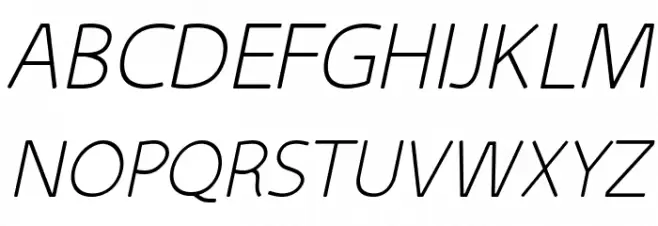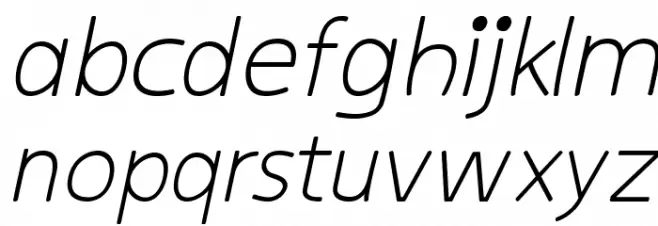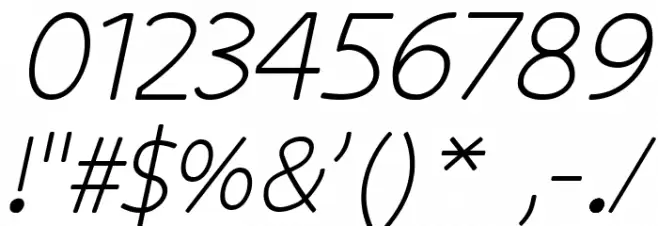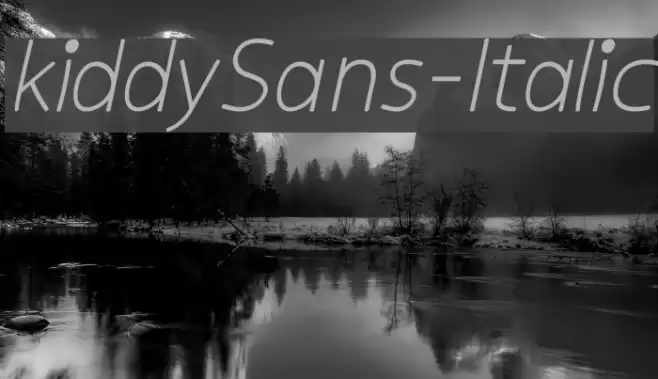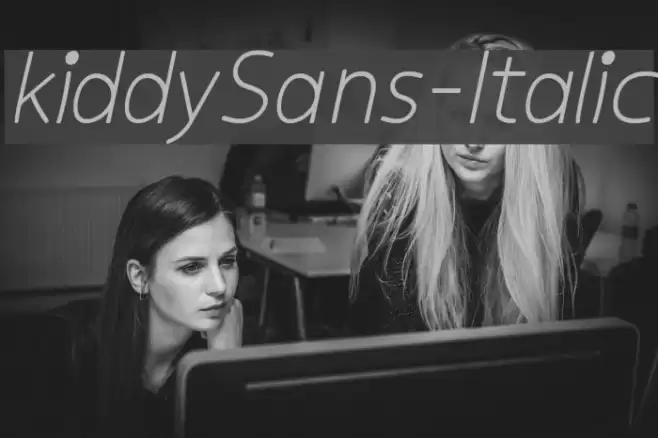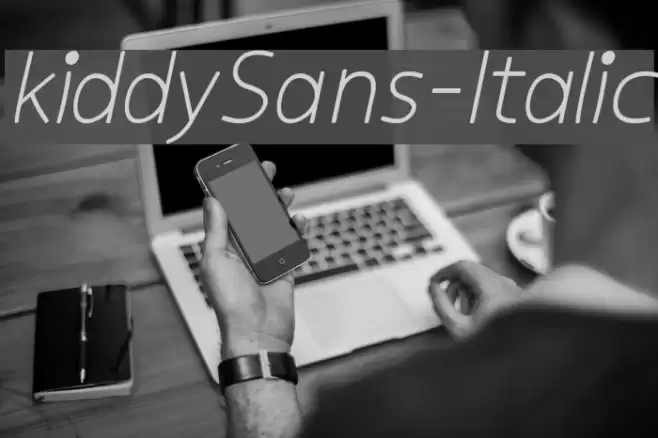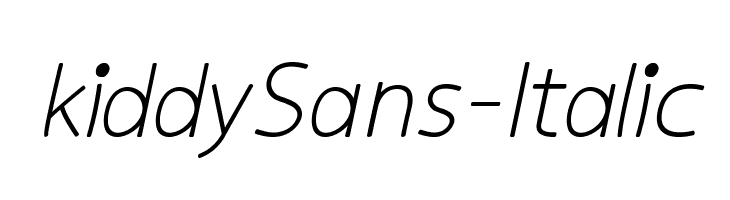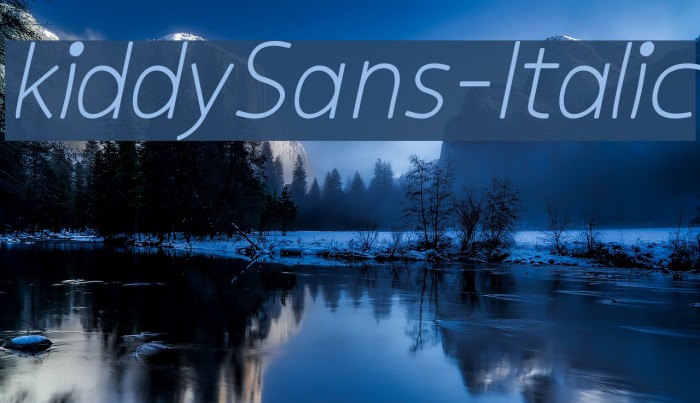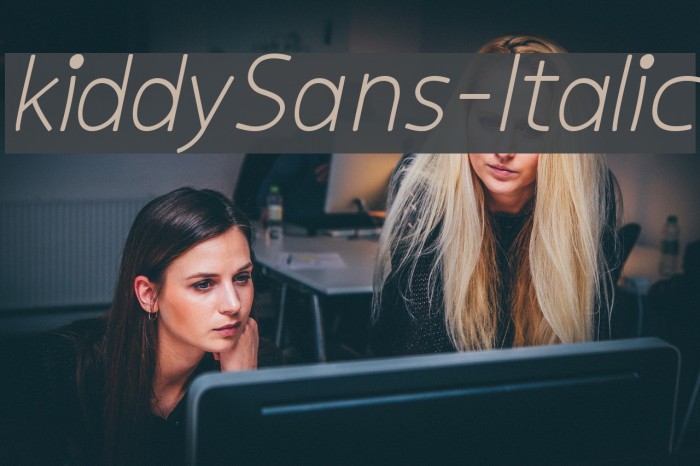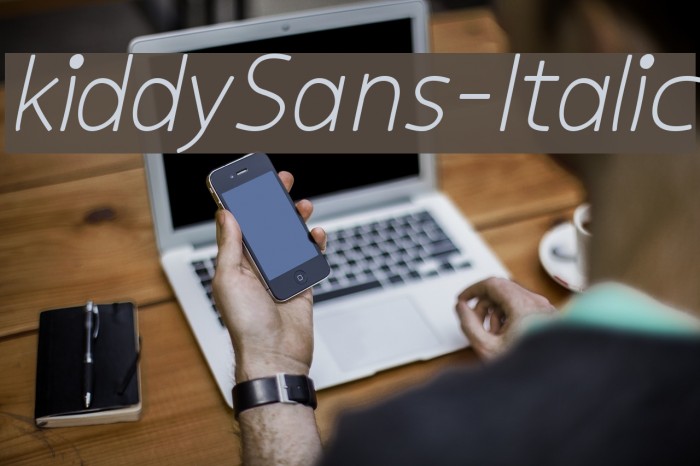
kiddySans-Italic
This font features a sleek and modern design with a slight italic slant, giving it a dynamic and contemporary feel. The characters are clean and streamlined, with smooth curves and a consistent stroke width that provides a sense of uniformity and balance. The uppercase letters are tall and elegant, while the lowercase letters maintain a friendly and approachable appearance. The numerals are clear and easy to read, making them suitable for various applications. Special characters are well-integrated, maintaining the overall aesthetic of the font. This typeface is versatile and can be used in a variety of design projects.
A sleek, modern italic font with smooth curves and consistent stroke width.
- Proposed Projects: Ideal for branding, advertising, digital content, and editorial design.